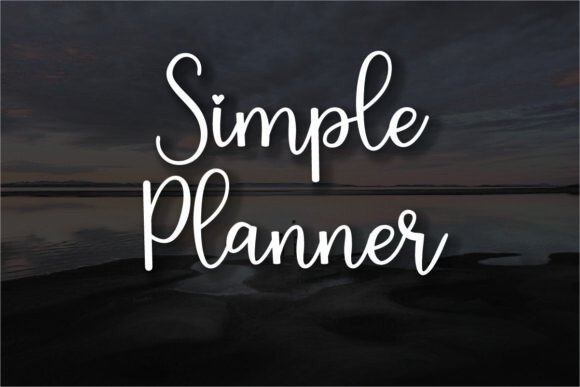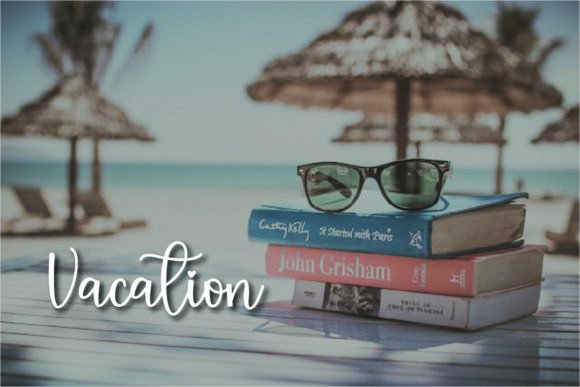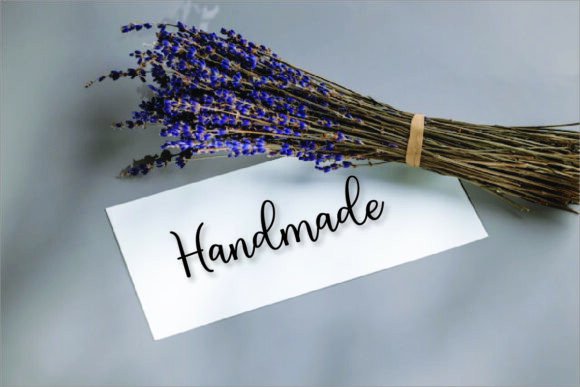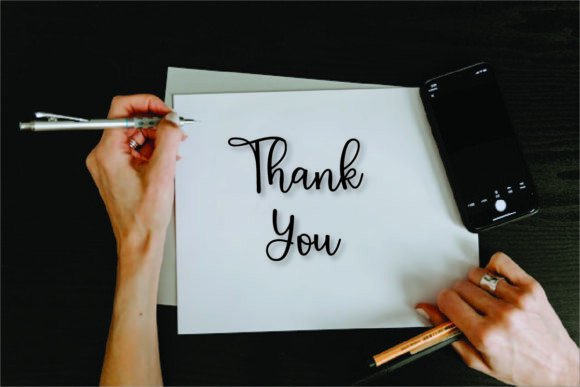
Daddies Font: The Sweet and Friendly Handwritten Font for Your Creative Projects
Are you a designer, crafter, or DIY enthusiast looking for a font that can add a personal touch to your creative projects? Look no further than Daddies Font, a sweet and friendly handwritten font that’s perfect for a wide range of designs. With its natural and unique style, Daddies Font is incredibly versatile and can be used for everything from greeting cards and invitations to branding and advertising materials.
The Characteristics of Daddies Font
Daddies Font is a handwritten font that’s designed to look like it was written with love and care. Its natural and unique style makes it stand out from more traditional fonts, and its friendly tone is sure to make your designs feel approachable and inviting. The font is highly legible, even at small sizes, making it perfect for use in a variety of applications.
The Benefits of Using Daddies Font
So why choose Daddies Font for your creative projects? Here are just a few benefits of using this sweet and friendly font:
- Versatility: Daddies Font is incredibly versatile and can be used for a wide range of designs, from formal to informal.
- Uniqueness: The font’s natural and unique style makes it stand out from more traditional fonts and adds a personal touch to your designs.
- Legibility: Daddies Font is highly legible, even at small sizes, making it perfect for use in a variety of applications.
How to Use Daddies Font in Your Designs
Using Daddies Font in your designs is easy. Here are a few tips to get you started:
- Pair it with other fonts: Daddies Font pairs well with a variety of other fonts, including serif and sans-serif fonts.
- Use it for headings and body text: The font is highly legible, making it perfect for use in both headings and body text.
- Experiment with colors and textures: Daddies Font looks great in a variety of colors and textures, so don’t be afraid to get creative.
Inspiration for Using Daddies Font
Still not sure how to use Daddies Font in your designs? Here are a few ideas to get you started:
- Greeting cards: Use Daddies Font to create personalized greeting cards for special occasions.
- Invitations: The font is perfect for creating invitations for parties, weddings, and other events.
- Branding and advertising: Use Daddies Font to add a personal touch to your branding and advertising materials.
- DIY projects: The font is perfect for use in DIY projects, such as crafting and scrapbooking.